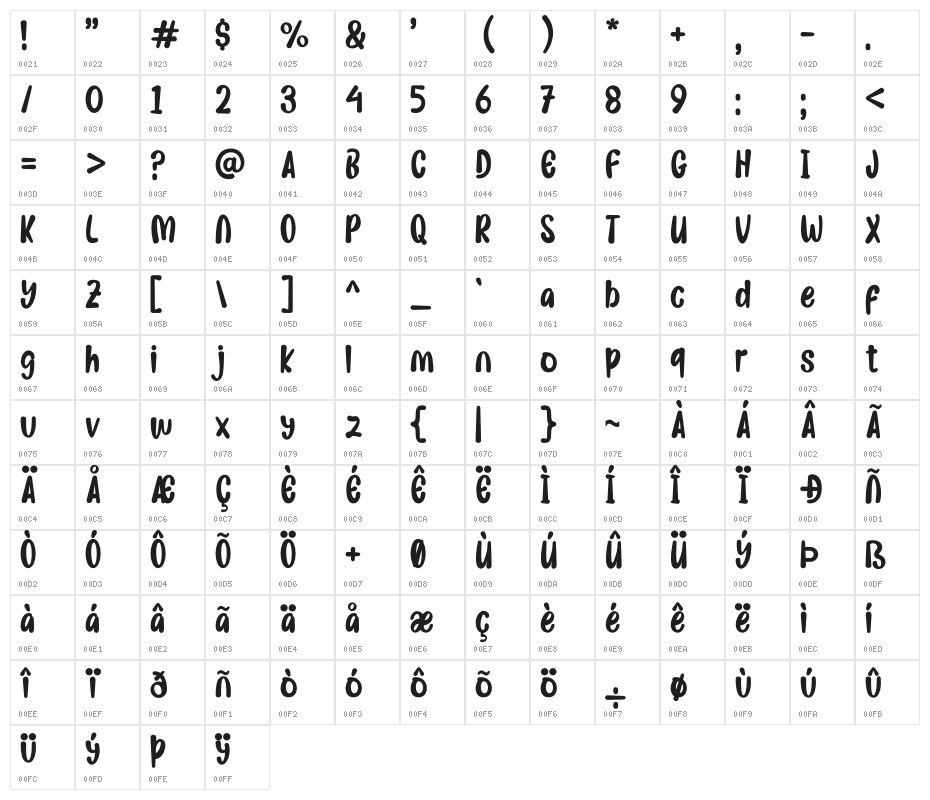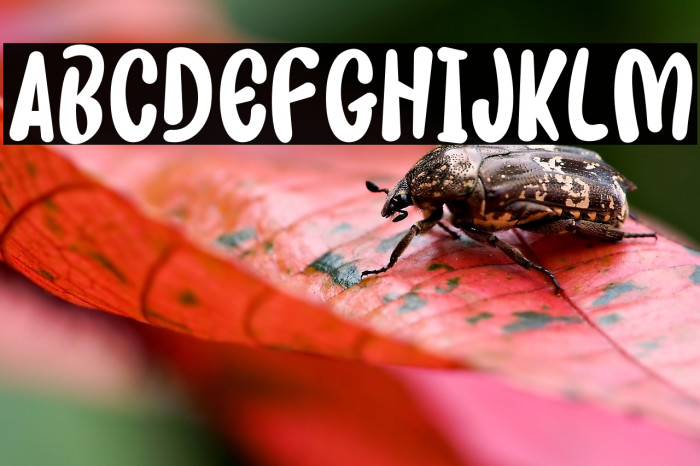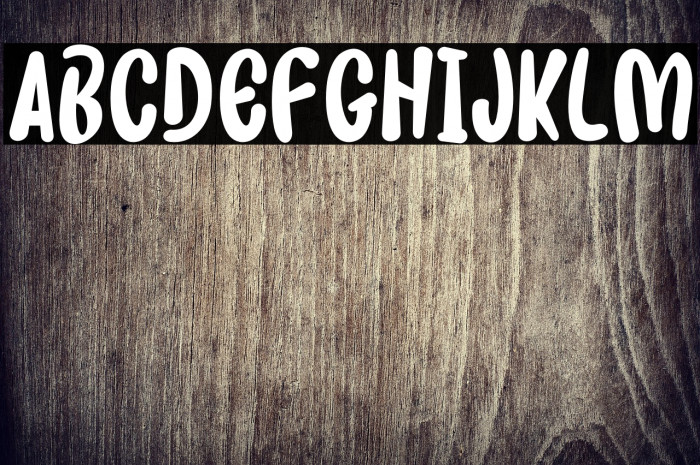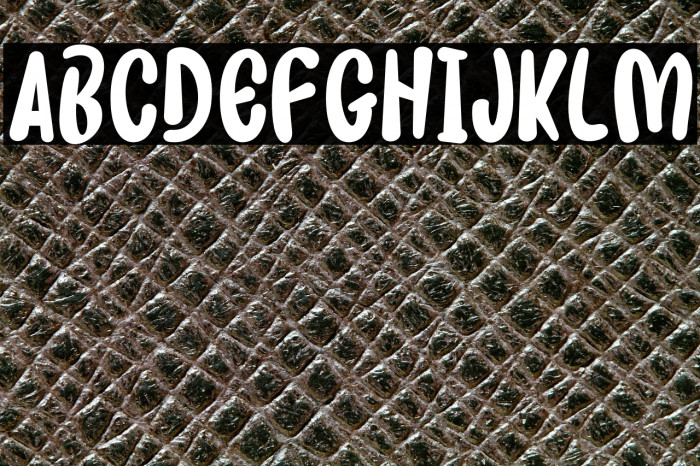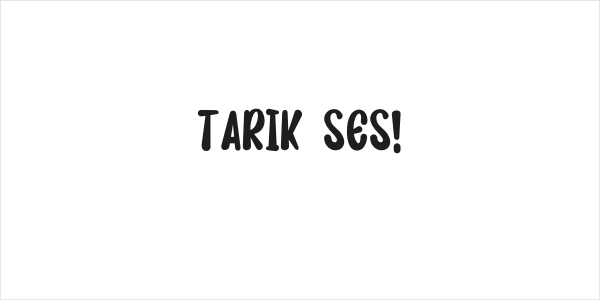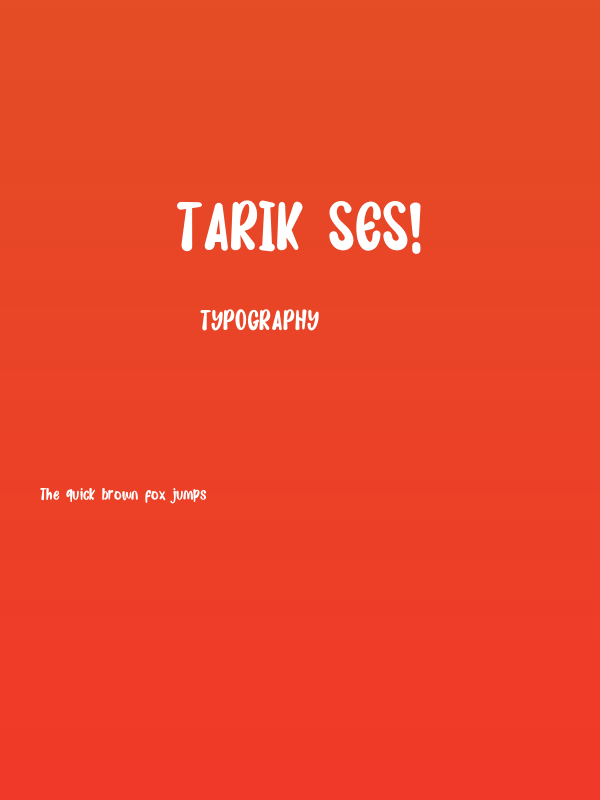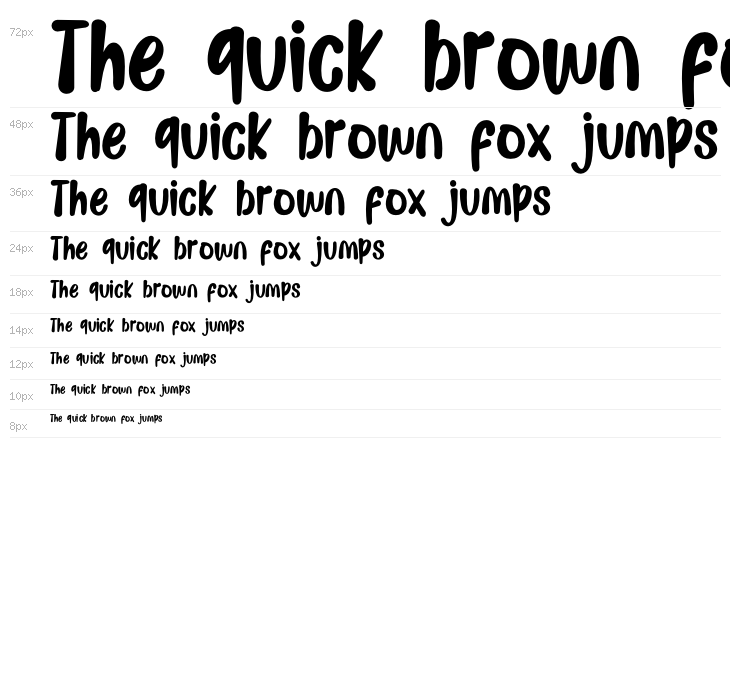
TARIK SES! Font
TARIK SES! Description
This font features a playful and bold handwritten style with rounded edges and a friendly appearance. The characters are thick and slightly irregular, giving them a casual and approachable feel. The uppercase and lowercase letters maintain a consistent style, with a slight slant that adds to the informal look. The numbers and special characters are designed to match the overall aesthetic, ensuring a cohesive appearance across all text. This font is ideal for projects that require a fun and engaging tone, such as children's books, playful branding, or creative posters.
| Proposed Projects | Children's books, playful branding, creative posters, informal invitations. |